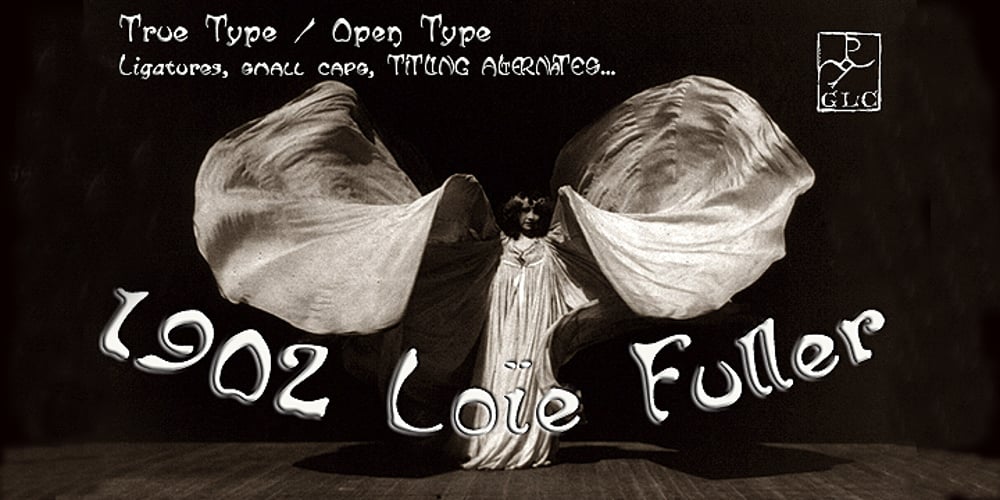
1902 Loïe Fuller
1902 Loïe Fuller font
1902 Loïe Fuller Font Family was designed by published by GLC. 1902 Loïe Fuller contains 1 styles and family package options. This script font was inspired by the 1900s Art Nouveau style, in tribute to the well known American dancer Loïe Fuller. This font is specially developed for the OpenType possibilities. The TTF and OTF versions contain, besides all accented Western European Latin characters and ligatures, small caps, contextual alternates, more than seventy titling alternates, and others… It is used as variously as web-site titles, posters and fliers design or greeting cards, all various sorts of presentations, menus, certificates, letters. This font supports very strong enlargements as well as small sizes. When printed, it remain perfectly legible and elegant from 7 pts even if using an ordinary inkjet printer .